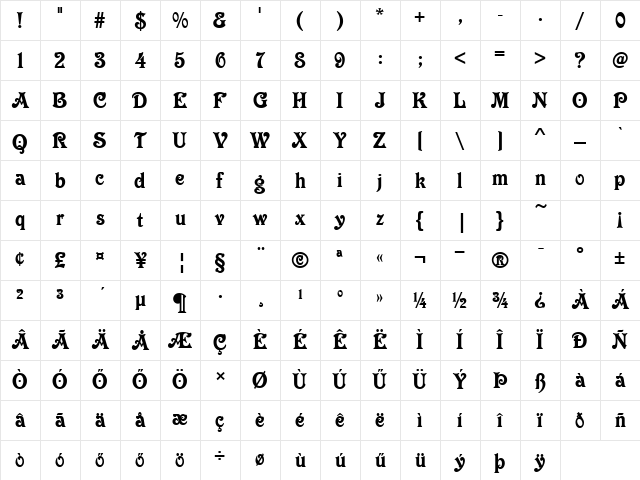
H_VictorianD Regular Free Font
H_VictorianD Regular
Design Context for H_VictorianD
H_VictorianD is a composed and adaptable typeface that performs quietly and consistently across a wide range of design contexts.